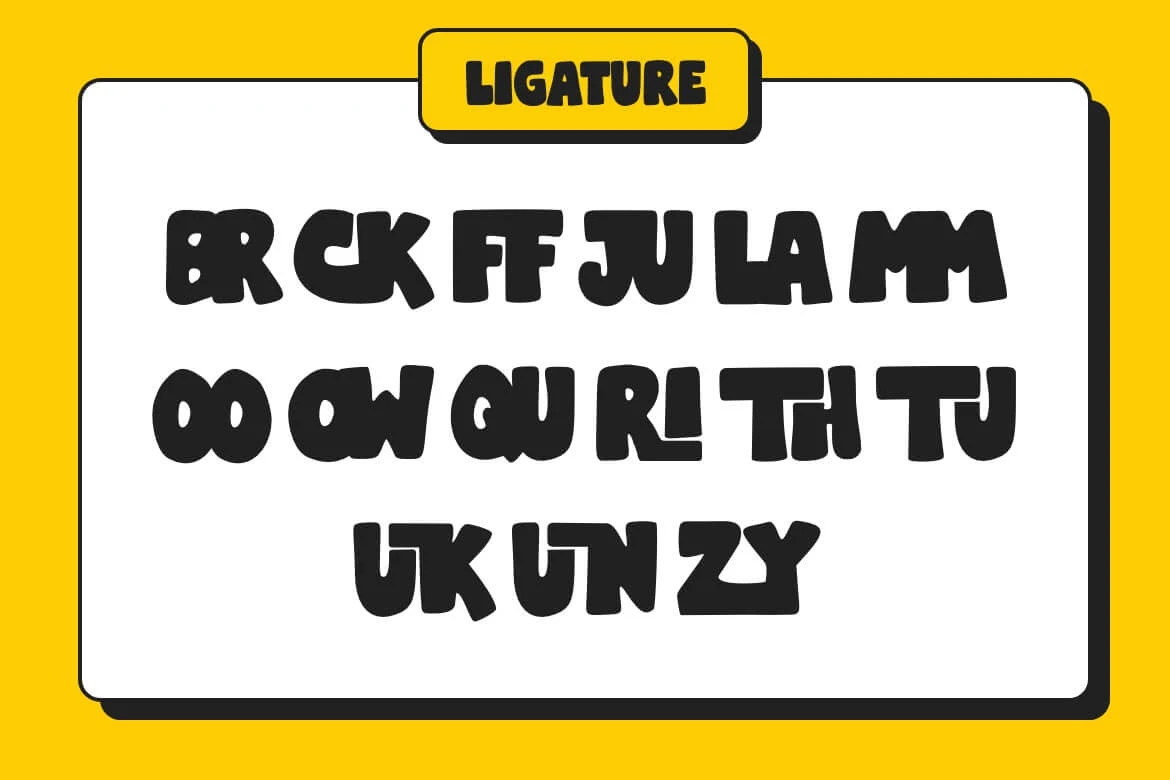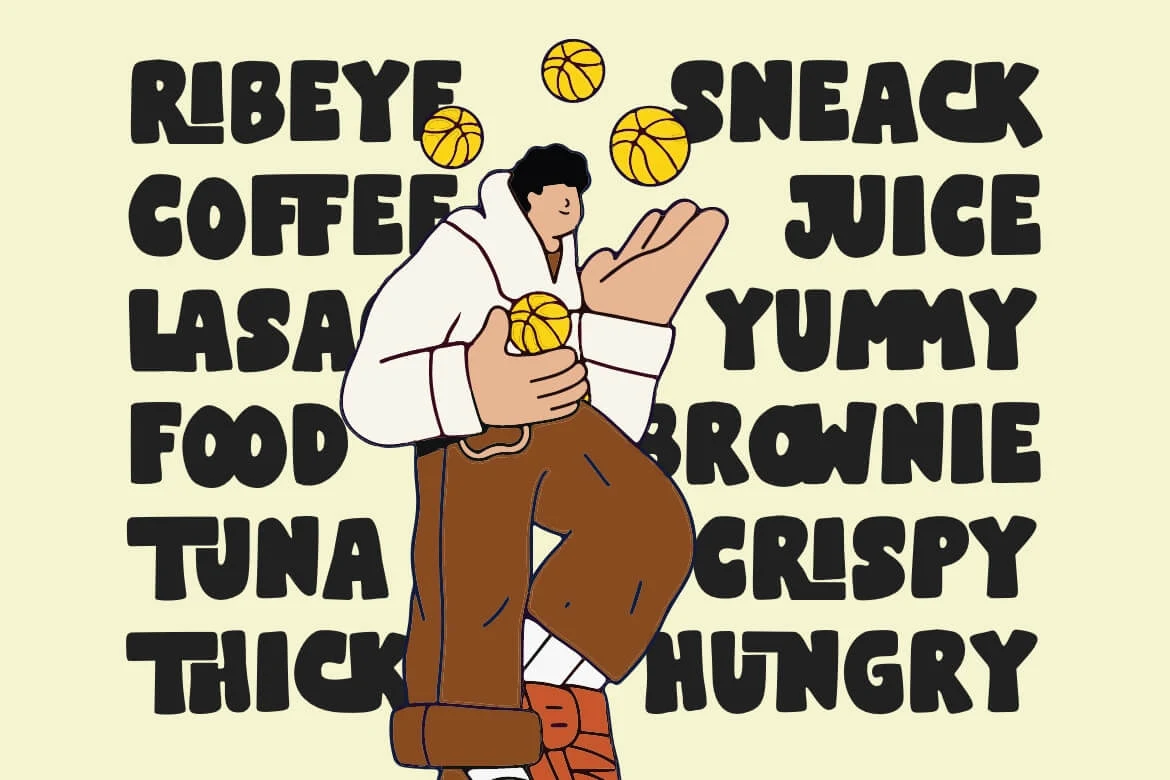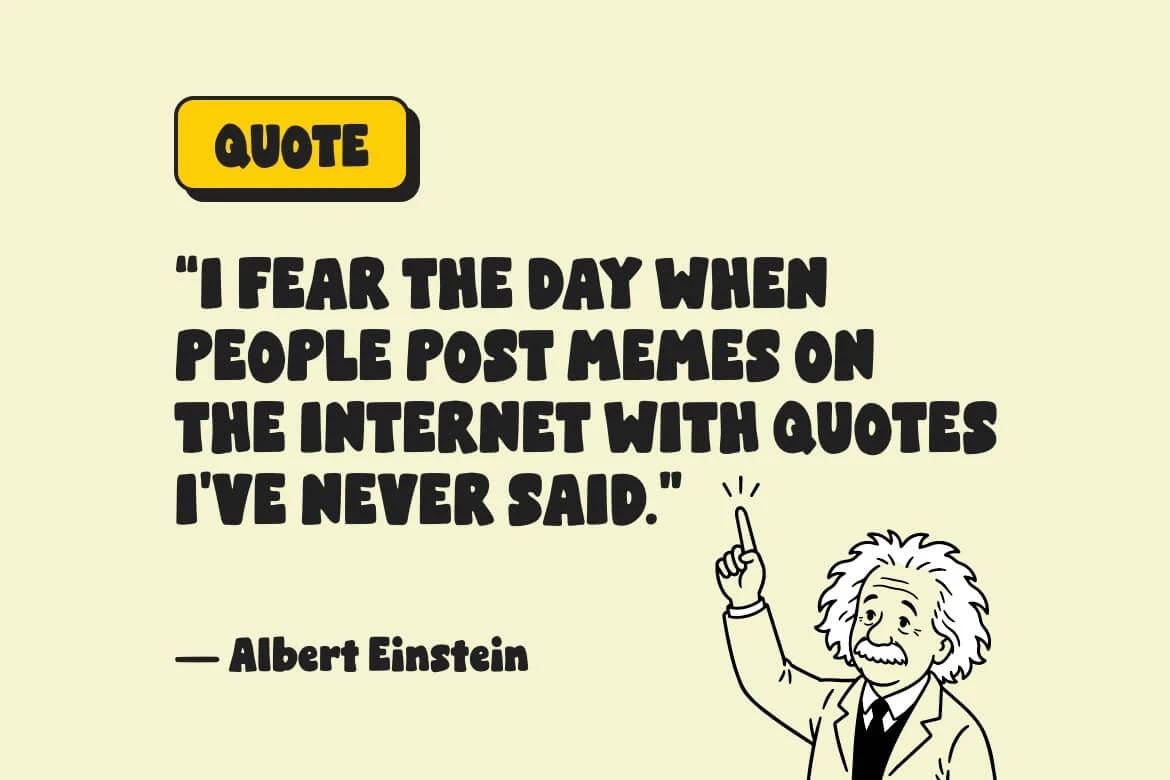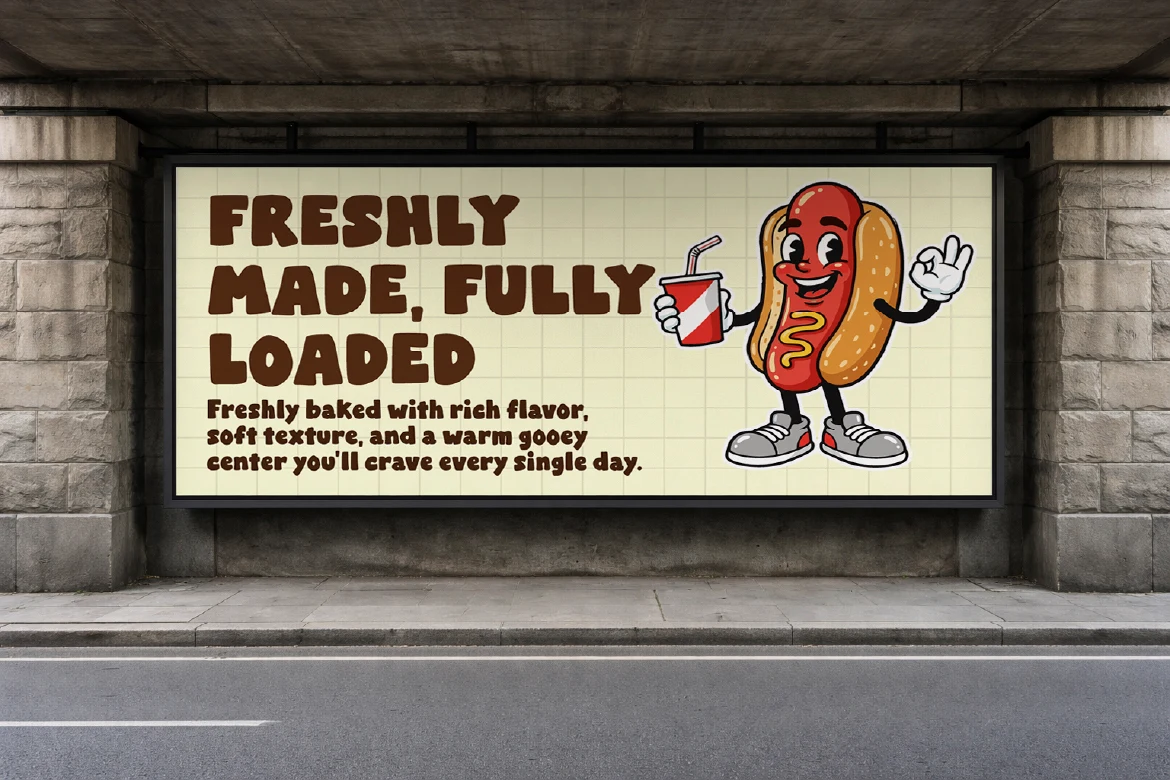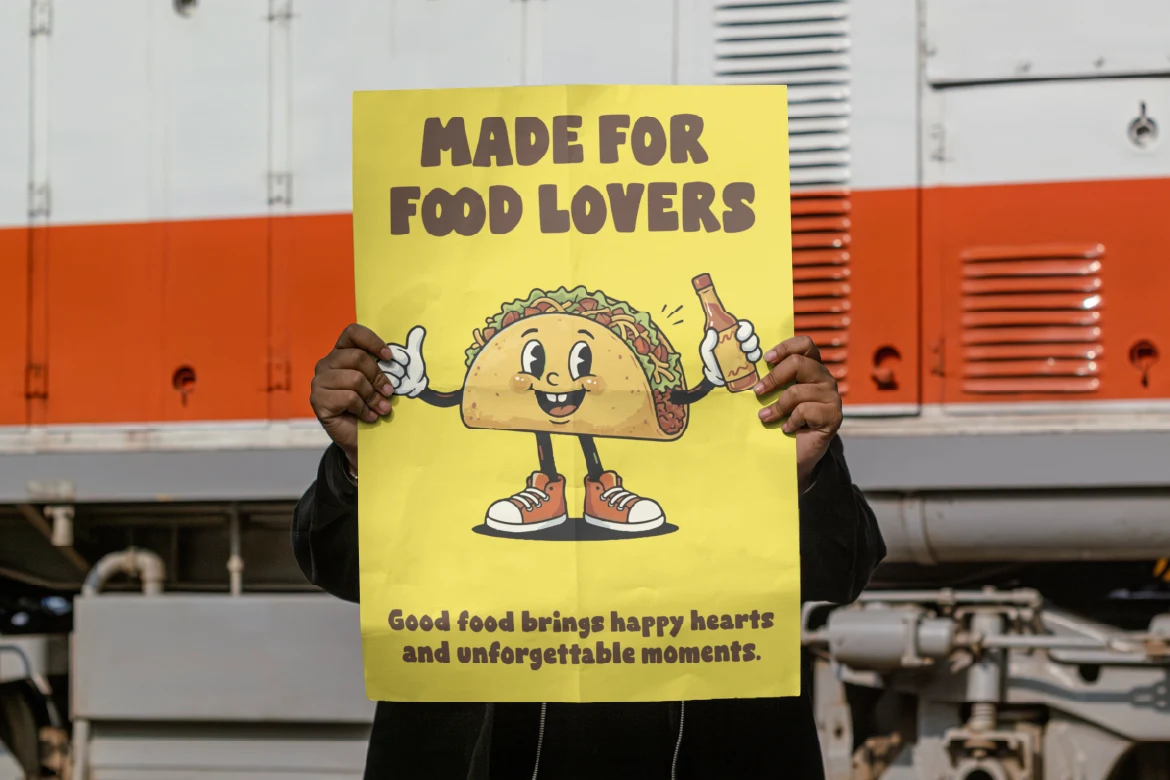
Puff Zille
Puff Zille is a chunky rounded display font with soft corners and puffy letterforms. It has the cheerful feel of classic comic titles and vintage toy packaging, but stays simple enough for modern creative projects.
It works well for bold titles, sticker packs, enamel pins, children’s storybooks, merch graphics, and playful brand details. The letters feel soft and welcoming, so your words can look fun without becoming too busy.